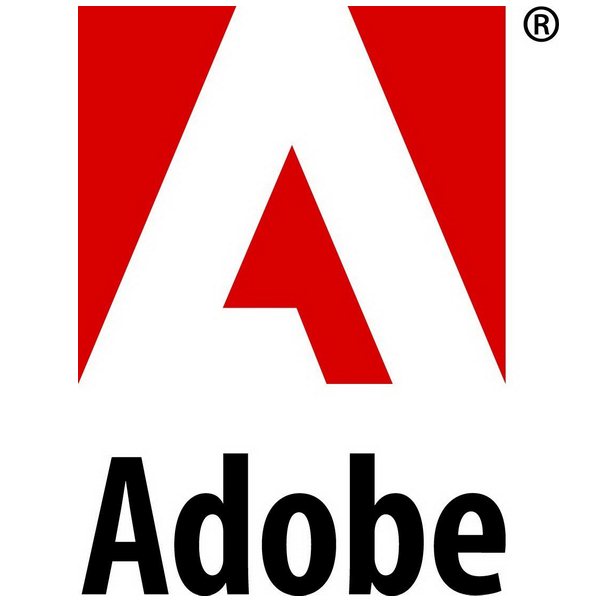
Adobe Font
Fonts in UseAdobe is a multinational software company known for its creative software suite, including Photoshop, Illustrator, and Premiere Pro.
The current Adobe logo, introduced in May 2020, features a minimalist all-red design with the abstract letter "A" in white and the word "Adobe" beneath it. The logo utilizes the corporate typeface called Adobe Clean.